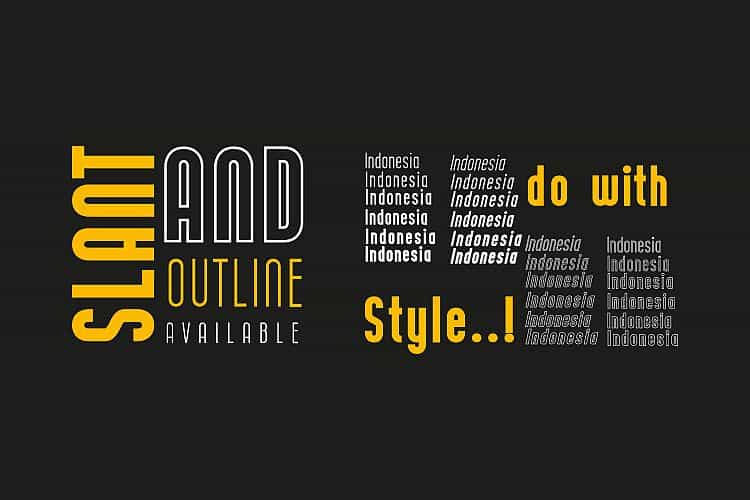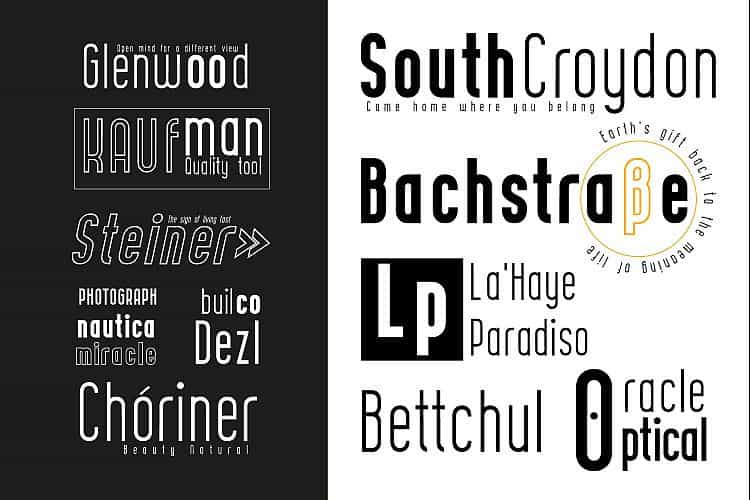
Discover CURVE Calibration Font Family, part of the Sans Serif Display collection—a versatile and unique font perfect for adding a personal touch to your projects. Download it for free and enjoy crafting designs with style, from invitations to social media posts. This font is available exclusively for personal use, giving you the freedom to create without limits. Unlock your creativity with CURVE Calibration Font Family today!
Say hello to the CURVE Calibration Font Family! CURVE Calibration Family is modern sans serif with 24 fonts. A versatile modern condensed font family, perfect for creating powerful, beautiful text. The Curve Calibration Font was designed and shared by 38-lineart. The Curve Calibration Font is an universal sans serif family.